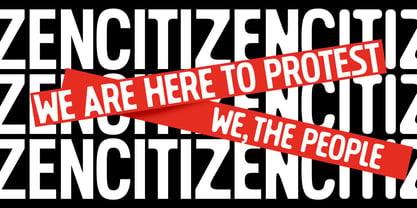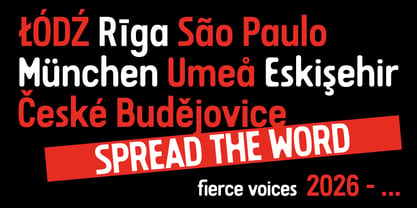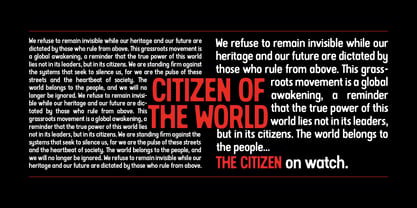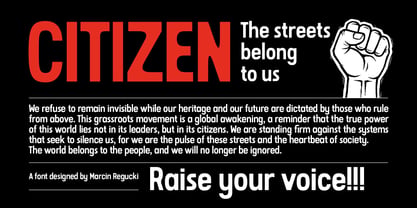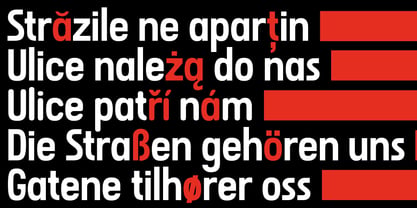
Citizen
by Marcin Regucki
The Citizen Font Family was designed by Marcin Regucki and published by Marcin Regucki. Citizen contains 3 styles and family package options. More about this family
Introducing Citizen, a powerhouse typeface available in three distinctive styles : Rounded , Inner Corners Rounded, and Sharp. This family is built for impactful messaging.
Inspiration
The soul of Citizen lies in the gritty reality of late 19th and early 20th-century industrial signage. The initial inspiration was drawn directly from old, enameled railway signs. The font family intentionally captures not just the geometry, but the physical imperfections of those hand-pressed messages.
Built for Impact
Citizen thrives in environments where visual impact is paramount, looking exceptional at large display sizes. It is the perfect tool for banners and protest signs , large-scale display , and expressing collective will. Citizen doesn't just display text; it broadcasts a message, demanding attention in an age of digital noise.